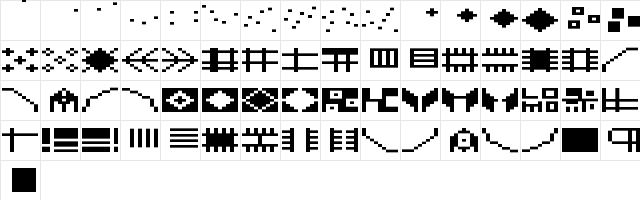
LomoSamples LT Std 4 Regular Font Preview
LomoSamples LT Std 4 Regular
LomoSamples LT Std 4 Regular Font Details
| Foundry | Linotype Library GmbH |
| Designer | Fidel Peugeot |
Design Context for LomoSamples LT Std 4 Typeface
LomoSamples LT Std 4 is a composed and adaptable typeface that performs quietly and consistently across a wide range of design contexts. The delicate stroke weight brings airiness and refinement to layouts.
Dating back to 1999, this typeface is available in OpenType (OTF) format.